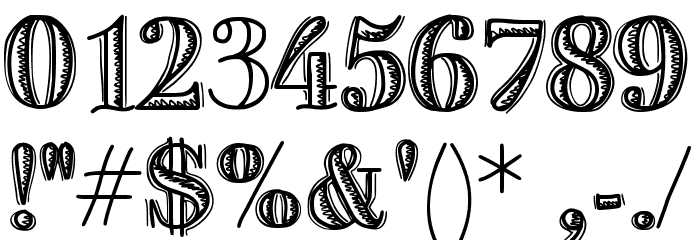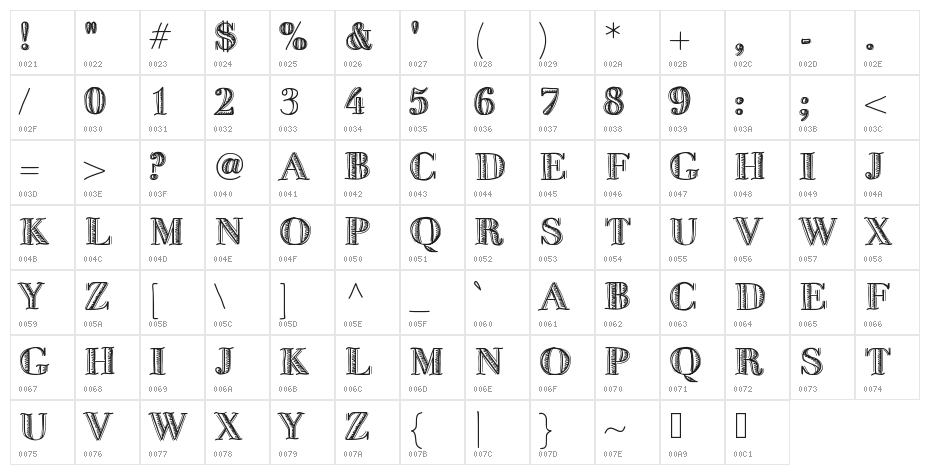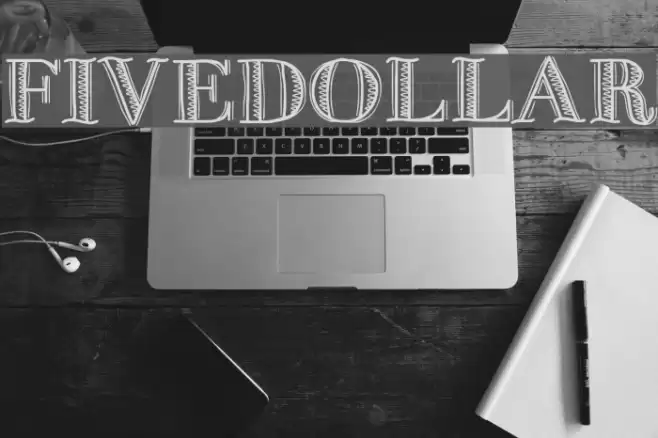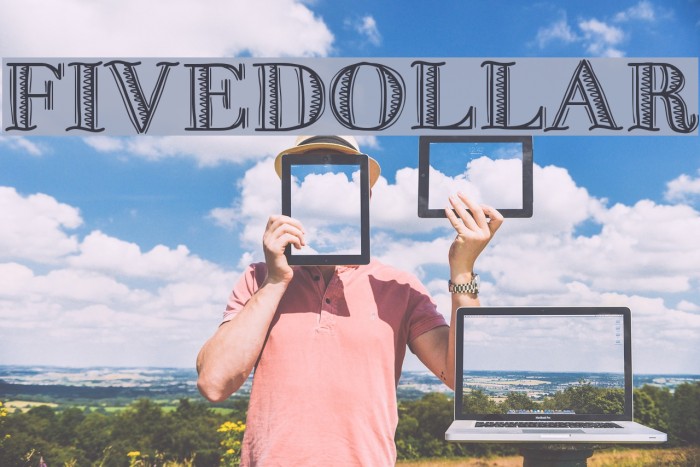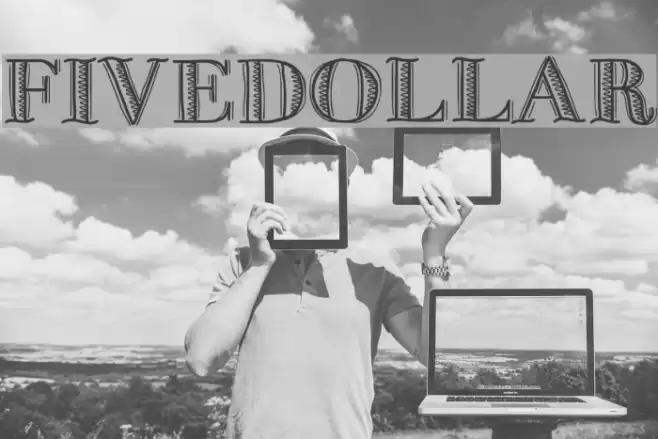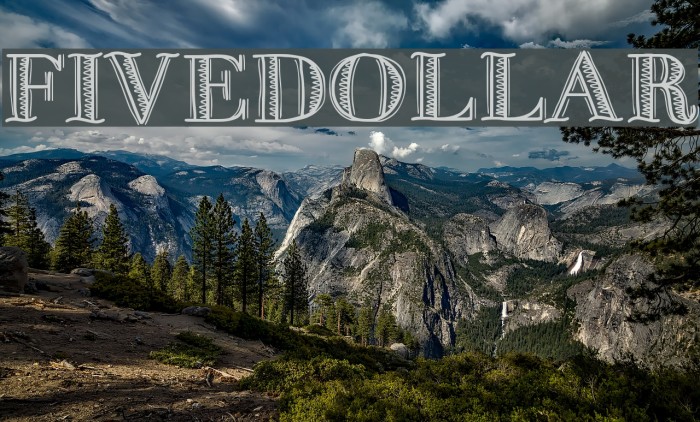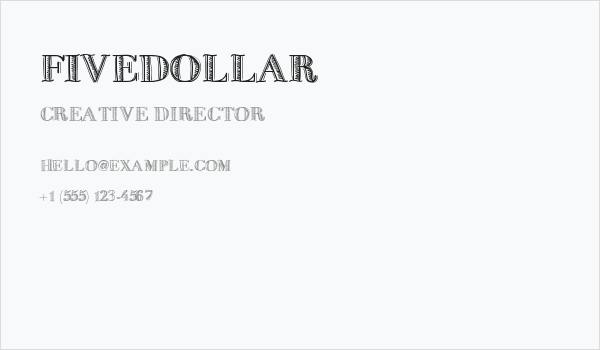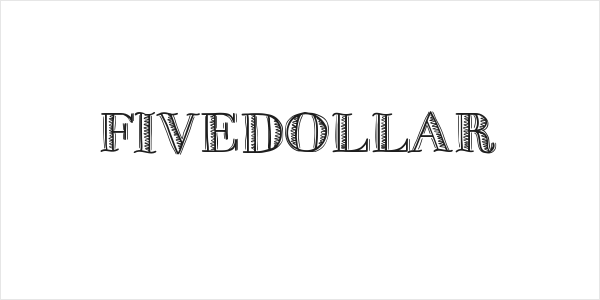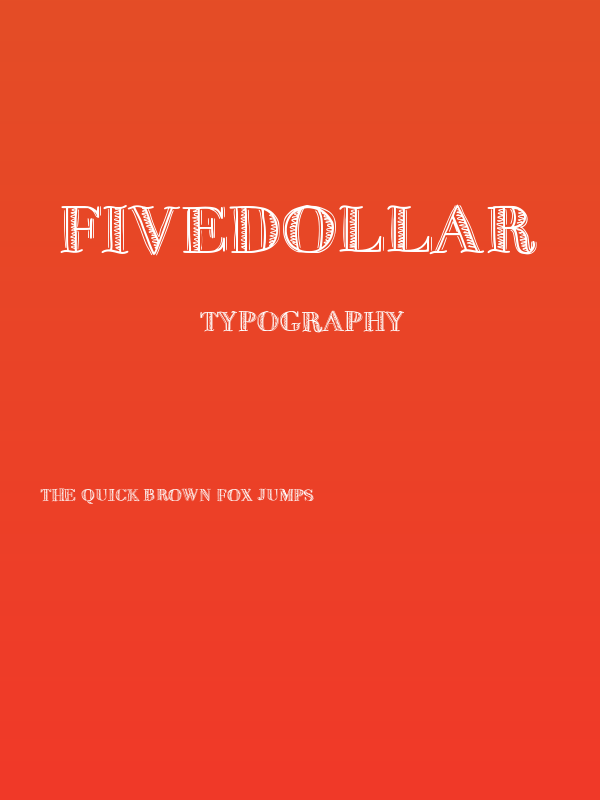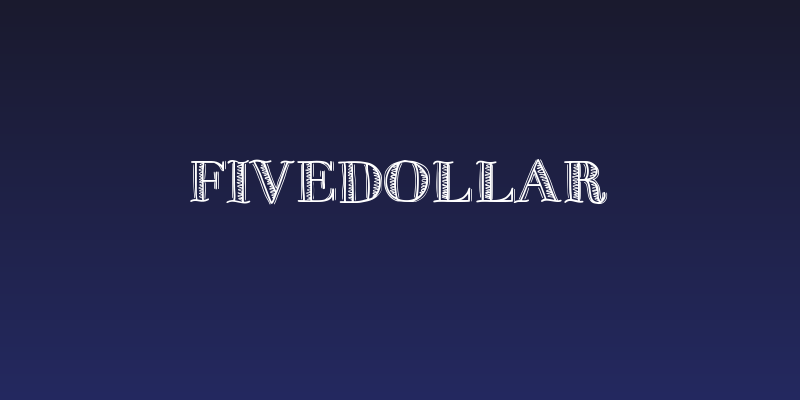
FiveDollar Font
FiveDollar Description
This font features a bold and decorative style with intricate line details within each character, giving it a vintage and ornate appearance. The uppercase and lowercase letters maintain a consistent design, with strong vertical lines and subtle curves that add to its unique charm. The numbers and special characters follow the same decorative theme, making the font cohesive and visually appealing. The overall look is reminiscent of old-fashioned signage or currency, which adds a touch of nostalgia and elegance.
| Proposed Projects | Ideal for vintage-themed posters, retro branding, decorative signage, and creative packaging designs. |